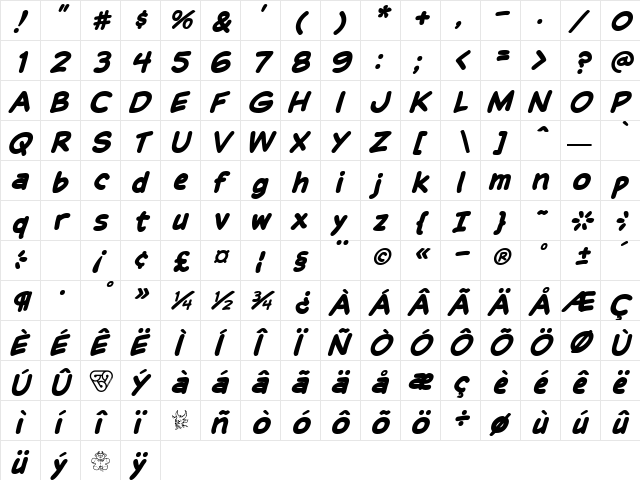
Balloon Lettering Stressed
| Style | Stressed |
Design Context for Balloon Lettering Typeface
Balloon Lettering offers clean, dependable letterforms without strong stylistic allegiance, making it a practical choice for designers who need flexibility.